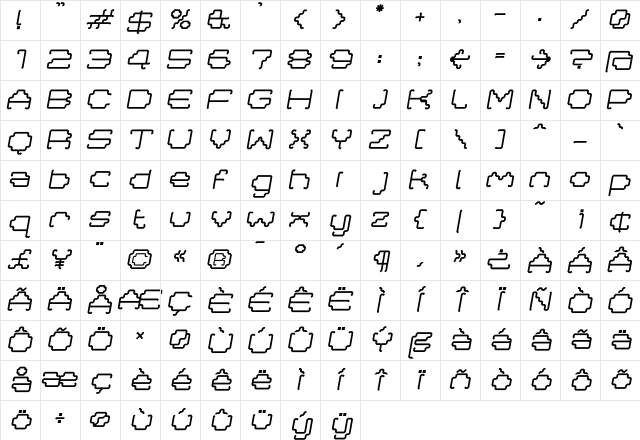
Masta Italic Free Font
Masta Italic
Foundry: he Identikal Foundry. t of the Identikal Corporation
Design Context for Masta
Masta is a composed and adaptable typeface that performs quietly and consistently across a wide range of design contexts. The slanted form adds forward momentum and visual energy.
Pro Tip: Use Masta for emphasis, pull quotes, and subheadings where its slanted energy can add rhythm to the layout.